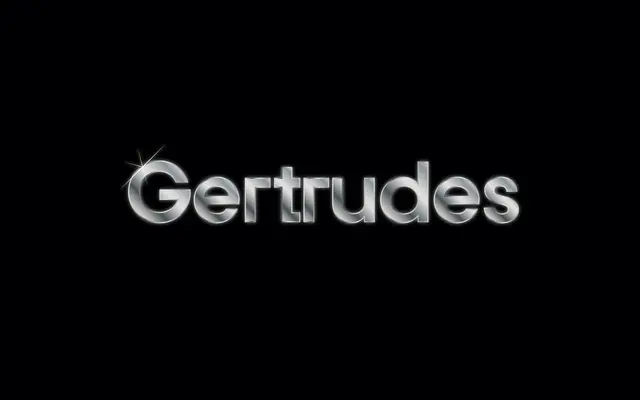
MT Gertrudes
A geometric sans-serif in three ideologically distinct sub-families, ranging from traditional circular forms to angular, rule-driven construction.
Designed by Simon Bent and released in 2024, MT Gertrudes splits across three sub-families sharing common metrics and weights but arriving at markedly different results. Gertrudes A follows conventional geometric sans principles; Gertrudes B occupies a middle ground; Gertrudes C pushes toward harder, more angular letterforms. All three span ten weights from Thin to Heavy, with broad Latin Extended coverage and a full complement of OpenType features.
Designed as a geometric sans-serif explored across three ideological variants: a traditional geometric approach (A), a hybrid (B), and a more angular, dogmatic interpretation (C).